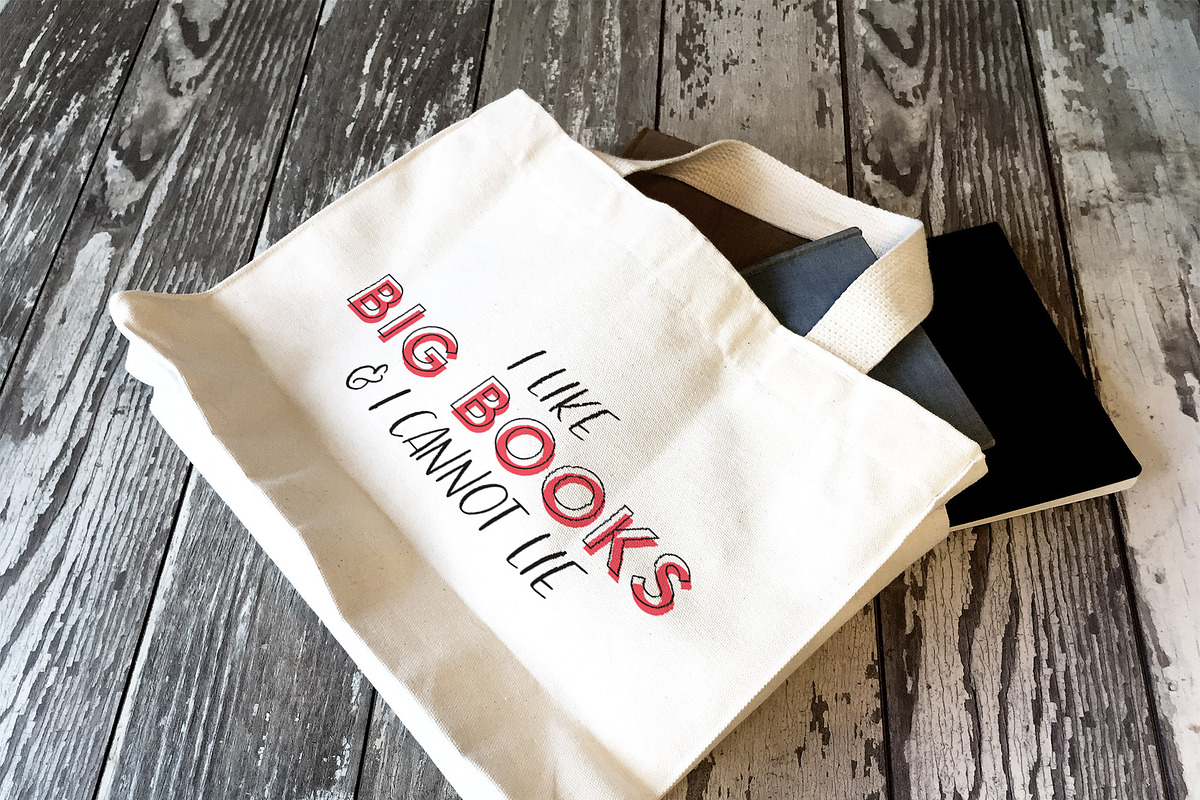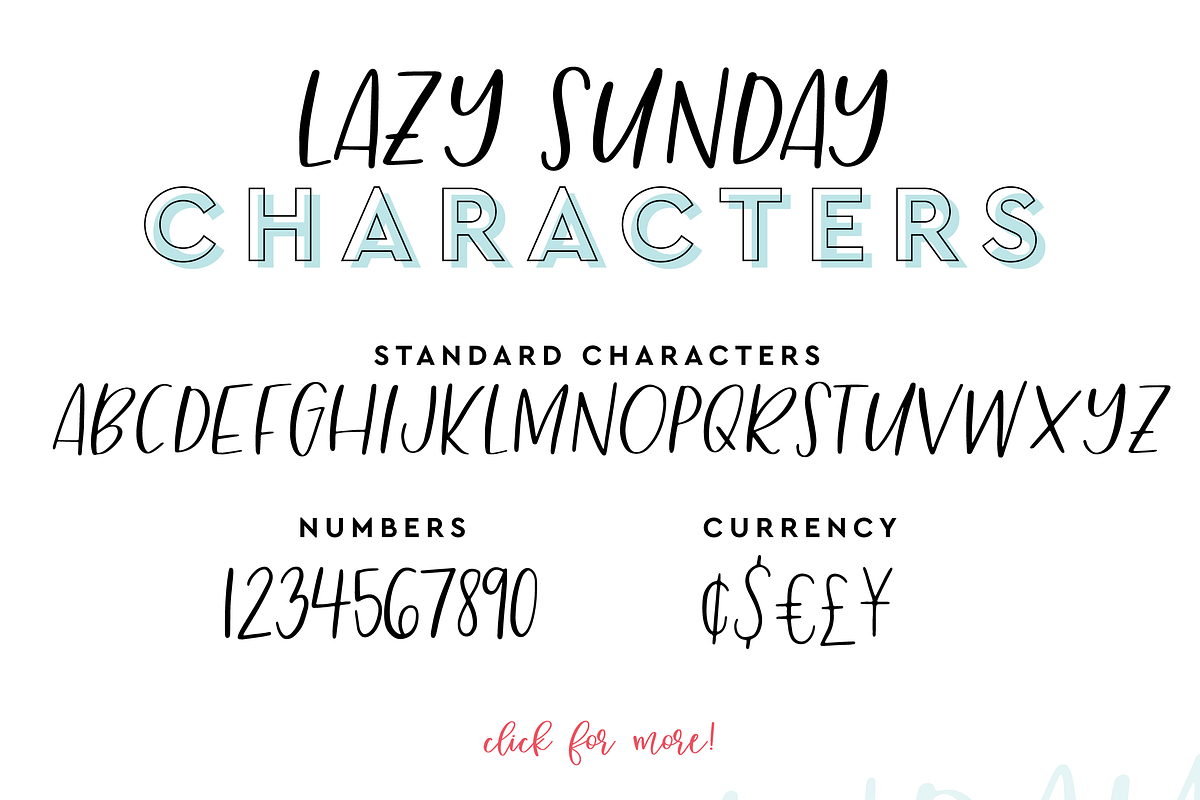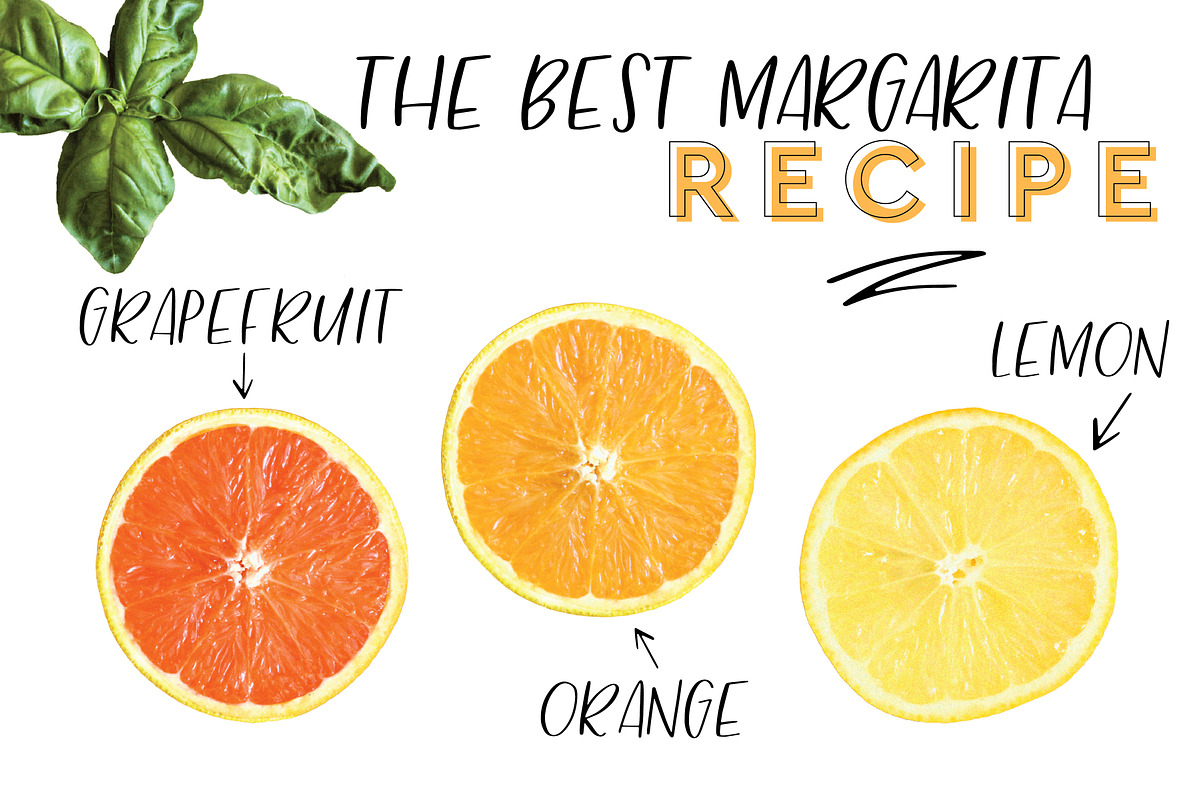
Lazy Sunday Font
Lazy Sunday Font by Hewitt Avenue is a font selected for branding, posters, packaging, typography.
- Included is a BONUS doodles font allowing you to create one-of-a-kind designs quickly.
Why Lazy Sunday Font is worth a look
Lazy Sunday Font by Hewitt Avenue fits naturally into Branding, posters, packaging, typography.